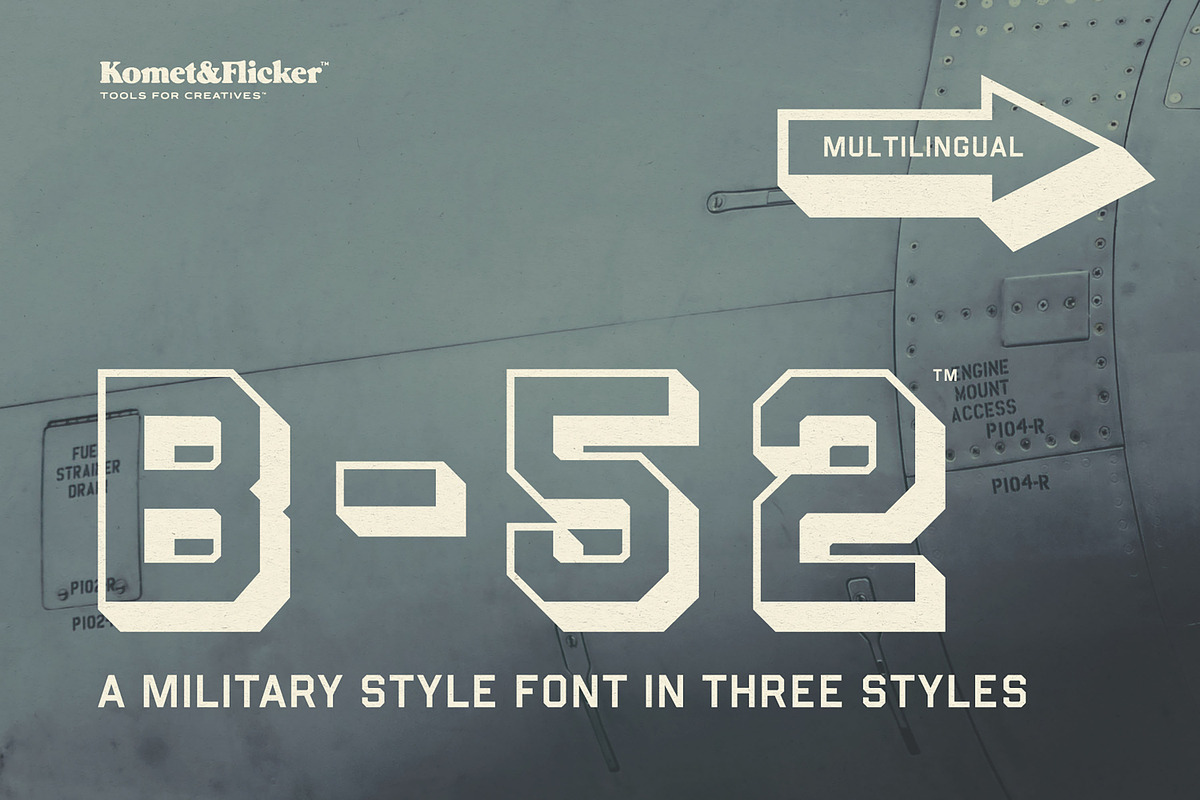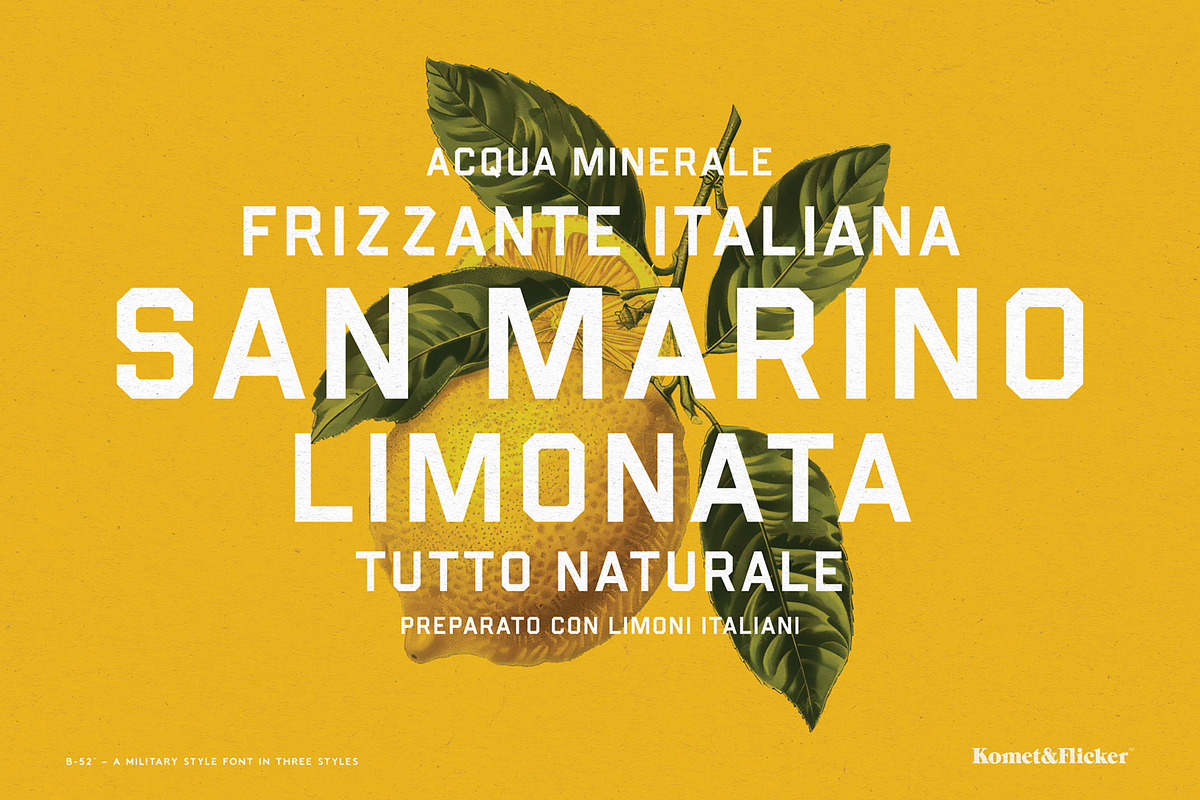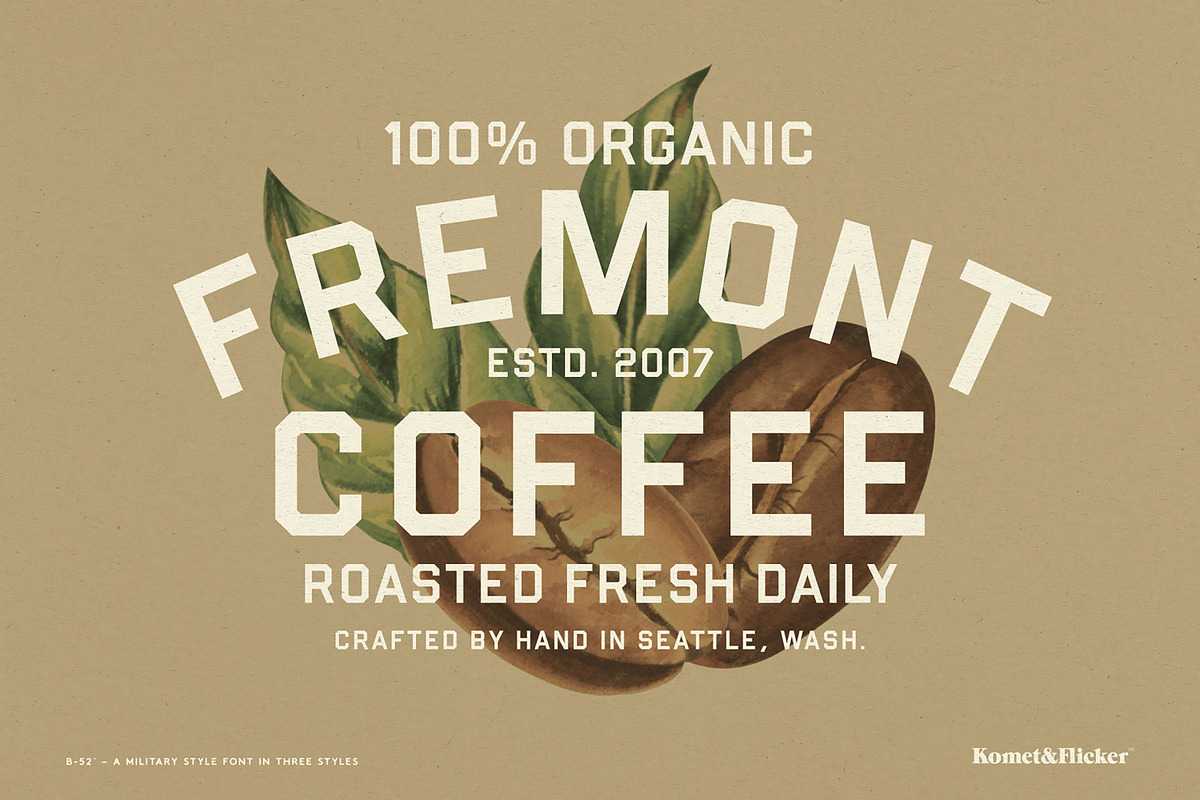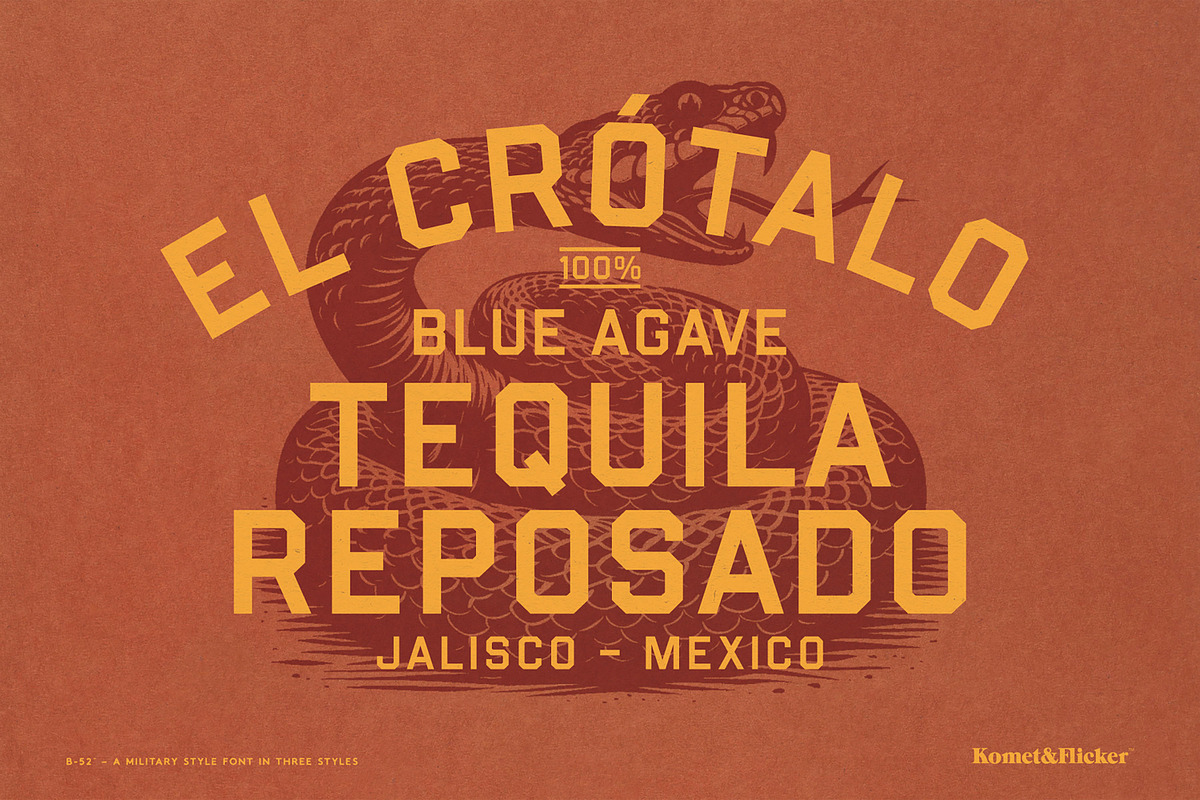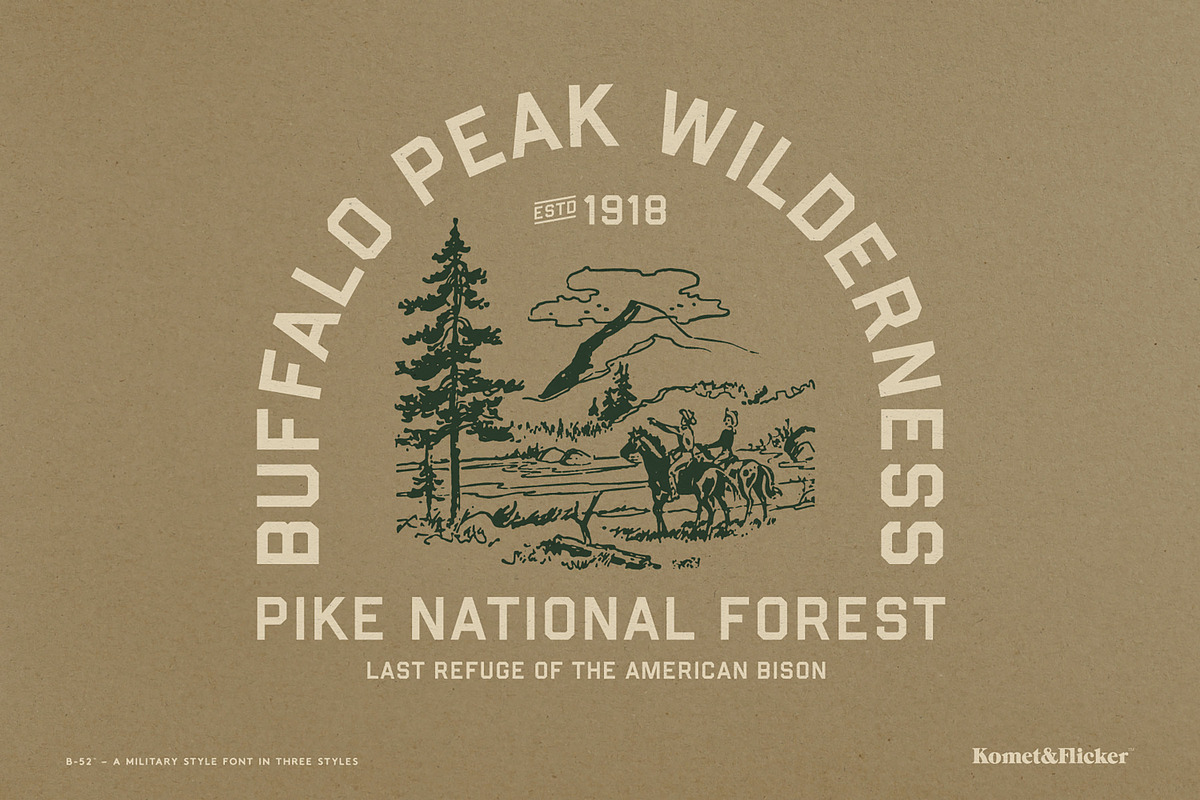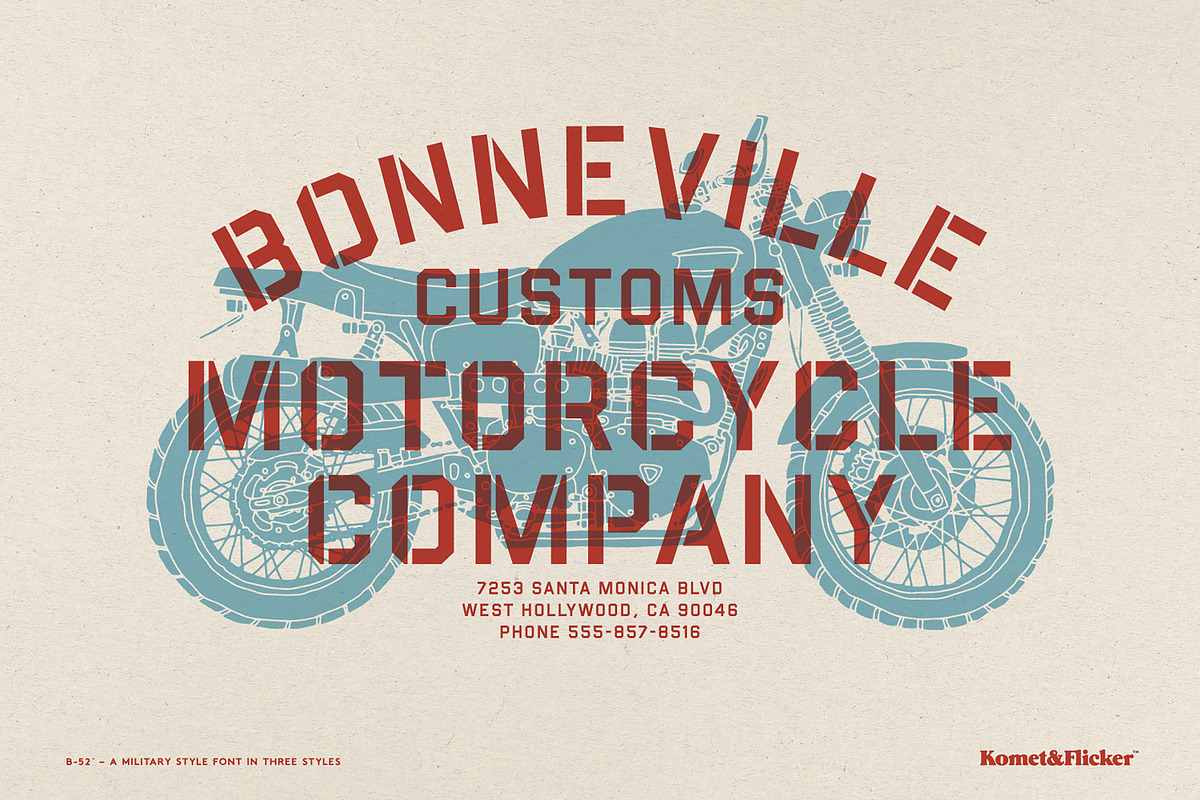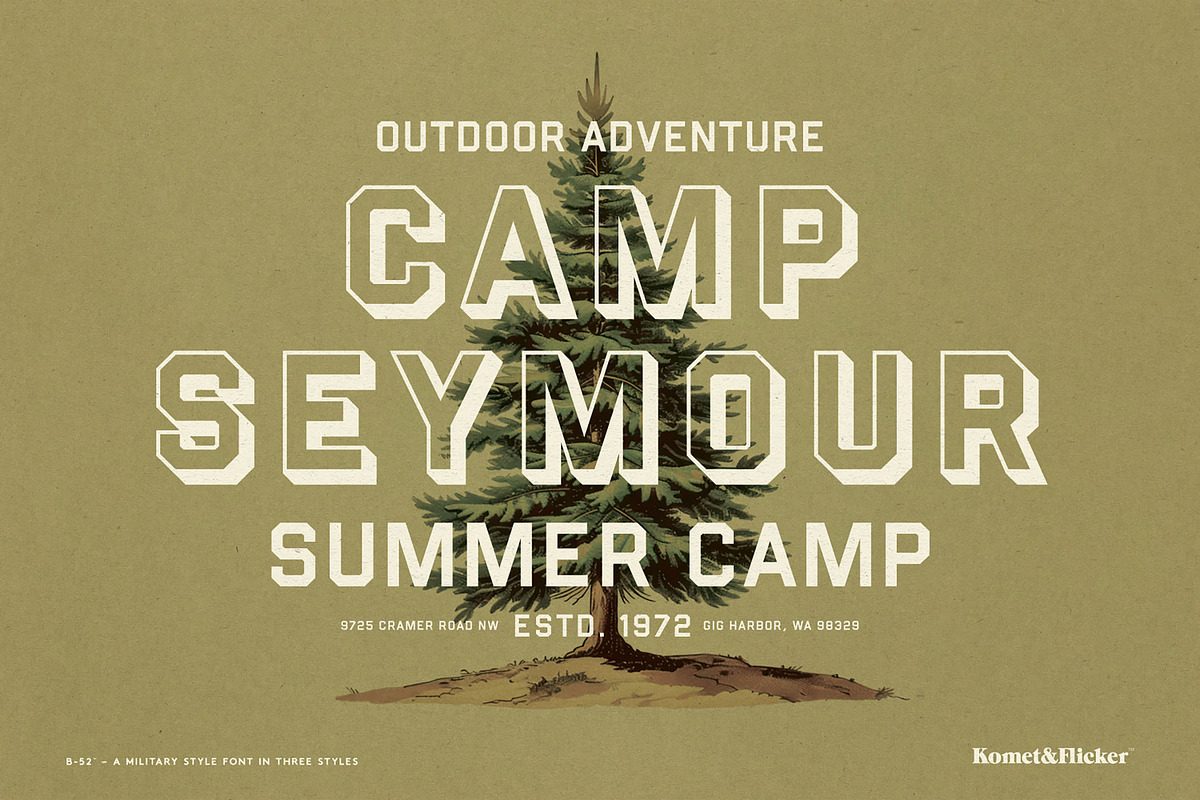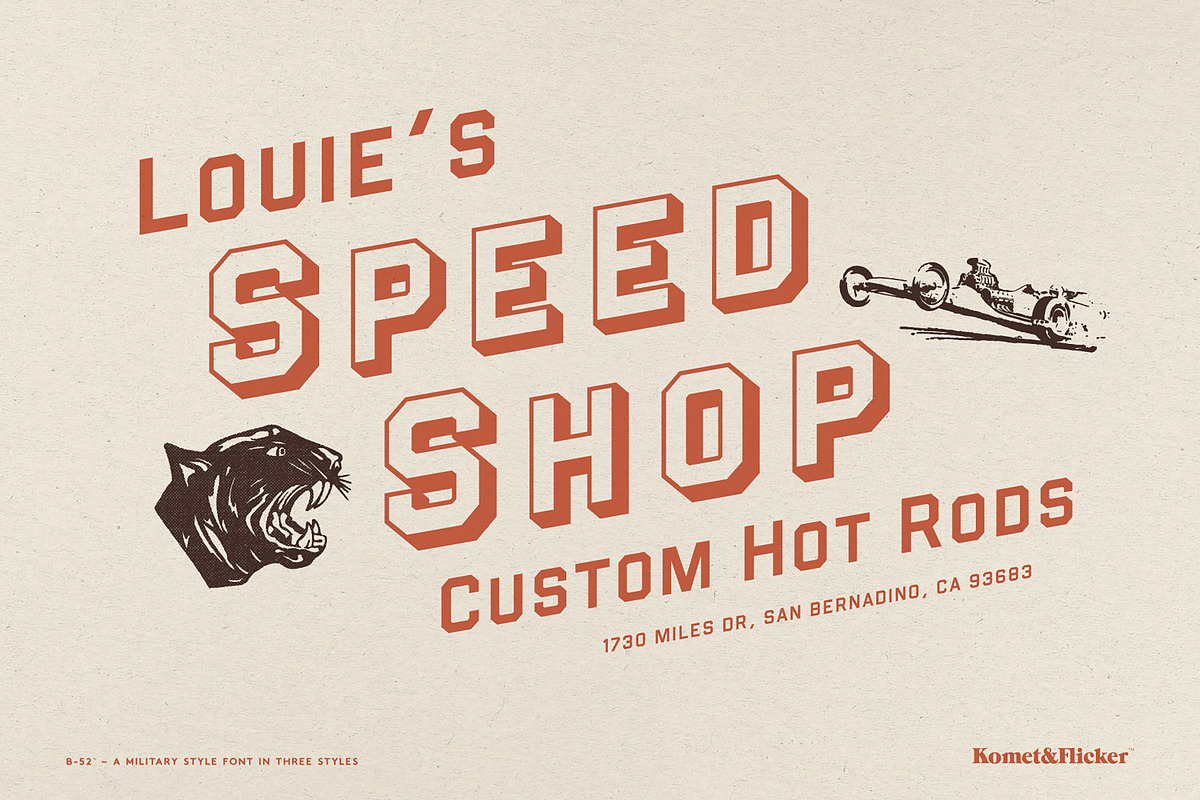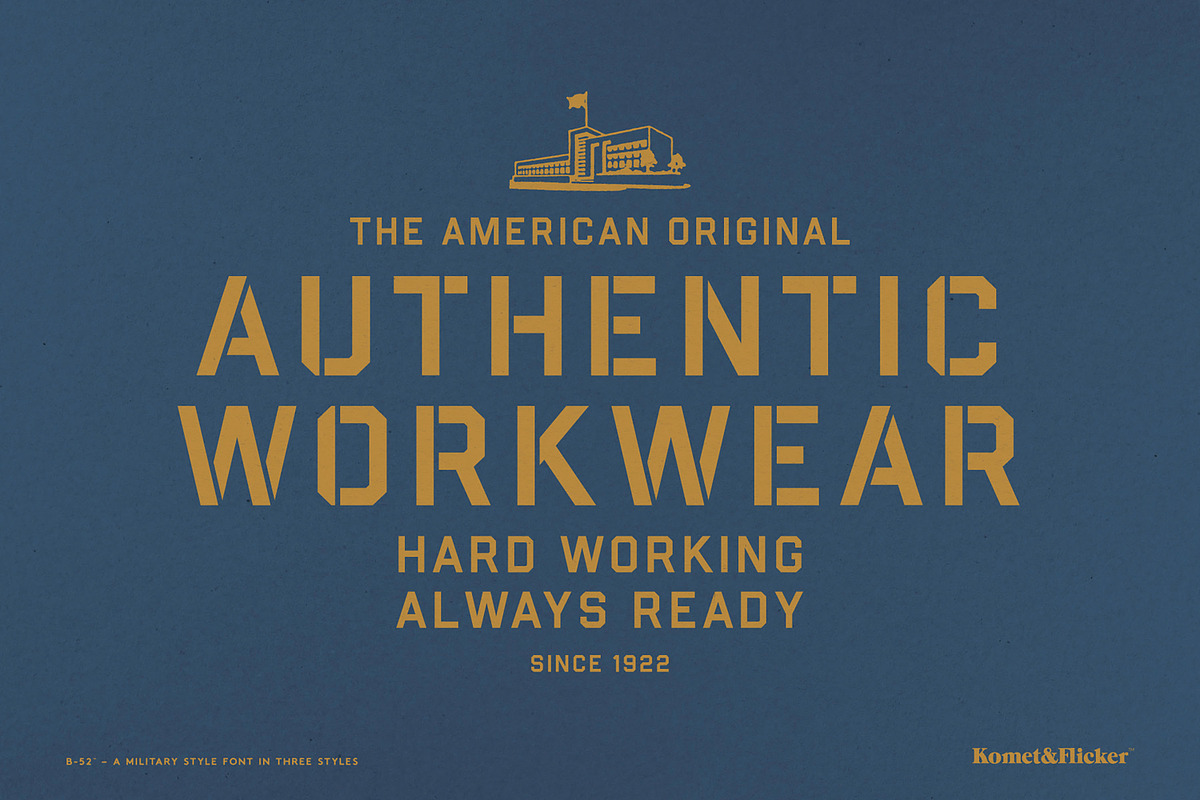
B-52 – A Military Style Font
Command attention with B-52, a striking font inspired by the rugged lettering found on military vehicles. This font also has a strong retro industrial and athletic vibe that works well for modern-vintage style designs. Designed for those who need their message to stand out with confidence, B-52 captures the essence of strength and precision.
THIS FONT COMES IN THREE STYLES
- B-52 Regular
- B-52 Stencil
- B-52 Shadow
THIS FONT INCLUDES
- Full A-Z uppercase and small caps basic latin characters
- Select European specific characters
- Numbers, punctuation, and select symbols
- Set of 15 custom connecting word glyphs in two styles
- Set of 15 Air Force themed dingbats